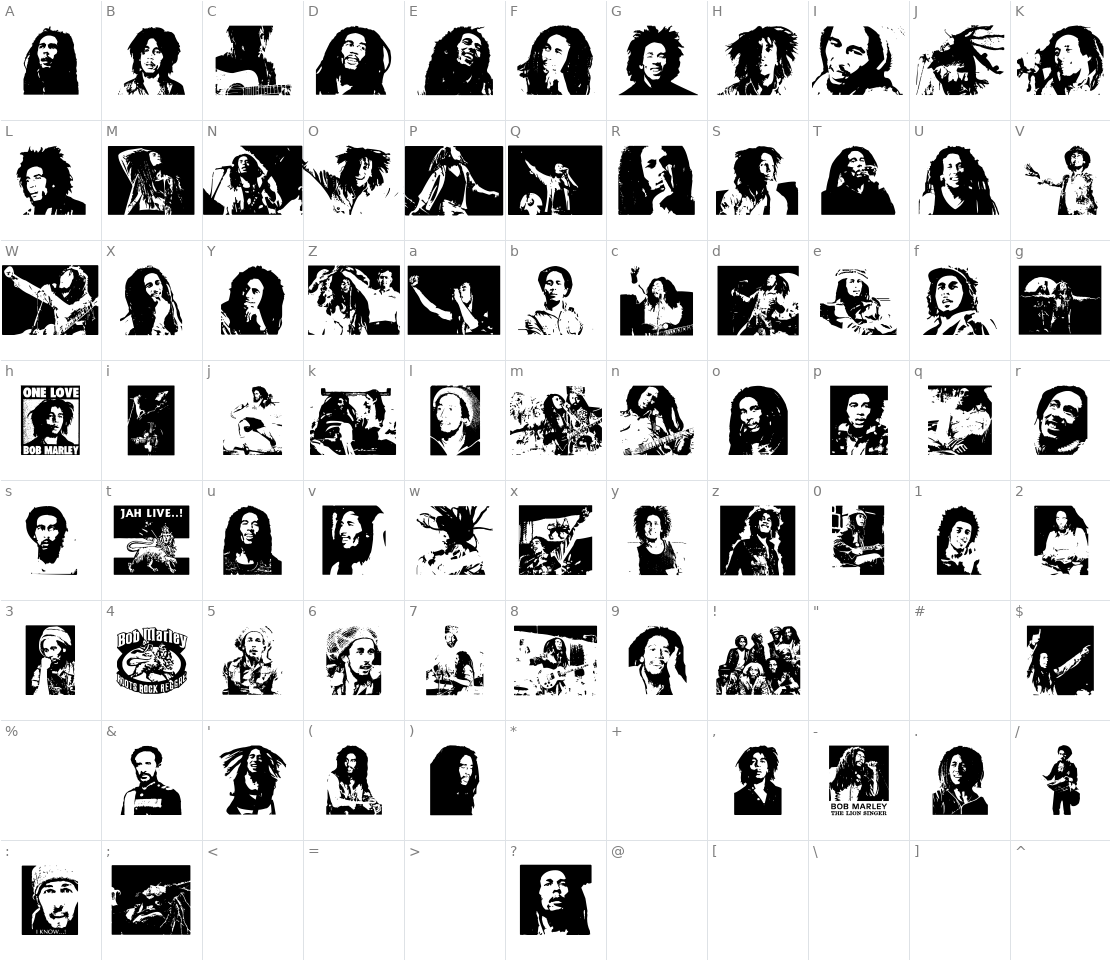
Bob Marley
by Chanaka Liyanage
Bob Marley is a decorative portrait font by Chanaka Liyanage where each character is built from silhouette imagery evoking the reggae icon himself. It's more illustrative than typographic, functioning as a set of stencil-like visual elements rather than readable text. Best used sparingly in posters, album art, or music-themed design where the cultural reference does the heavy lifting.